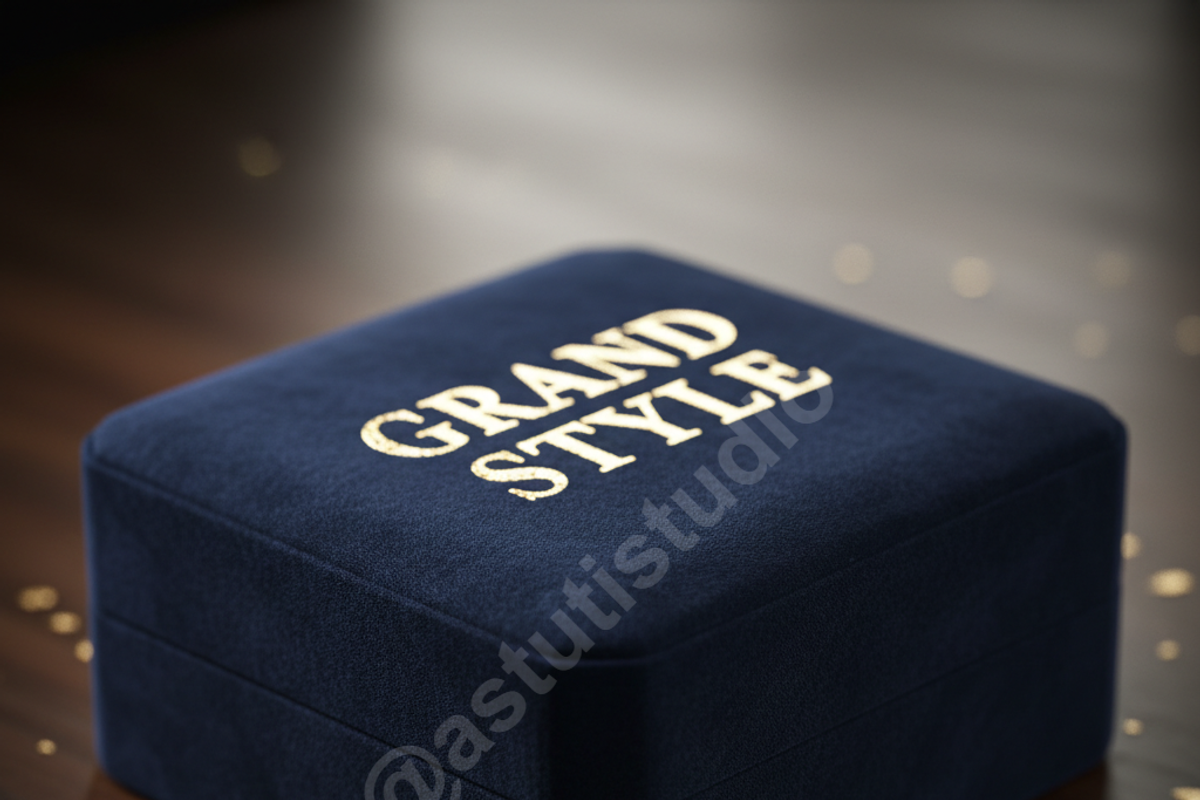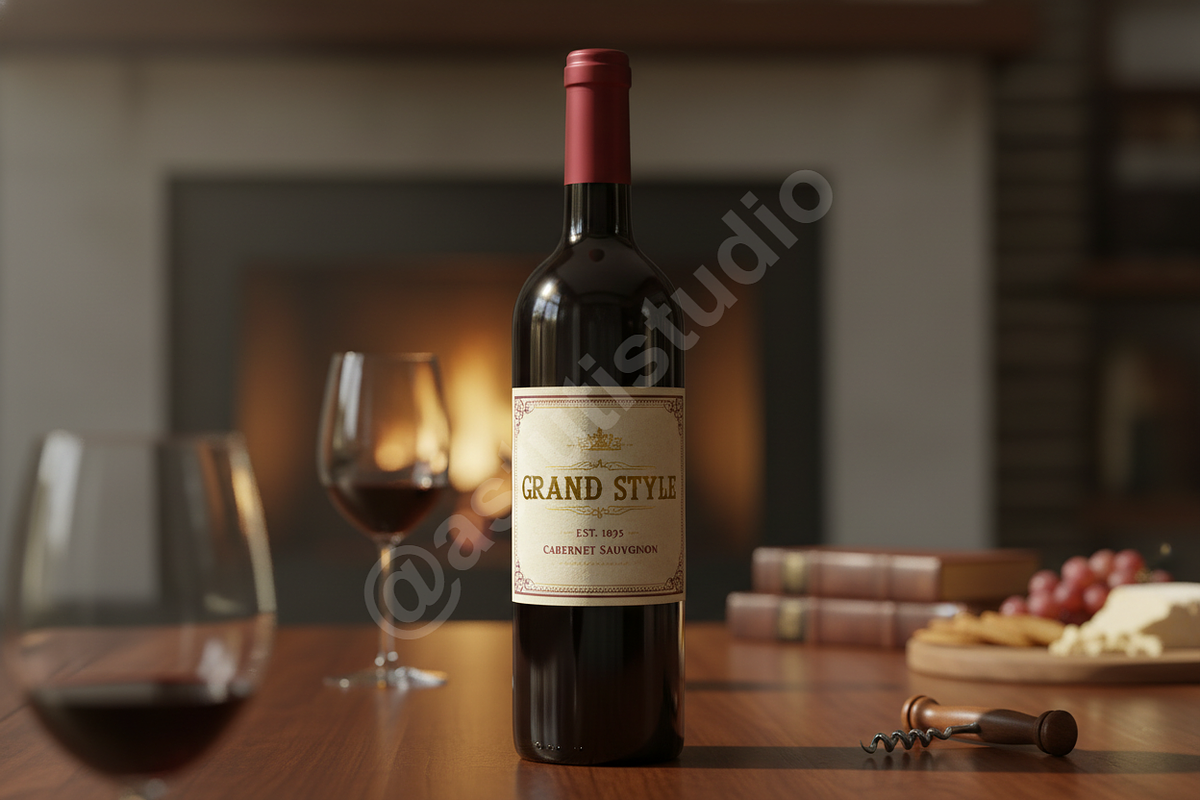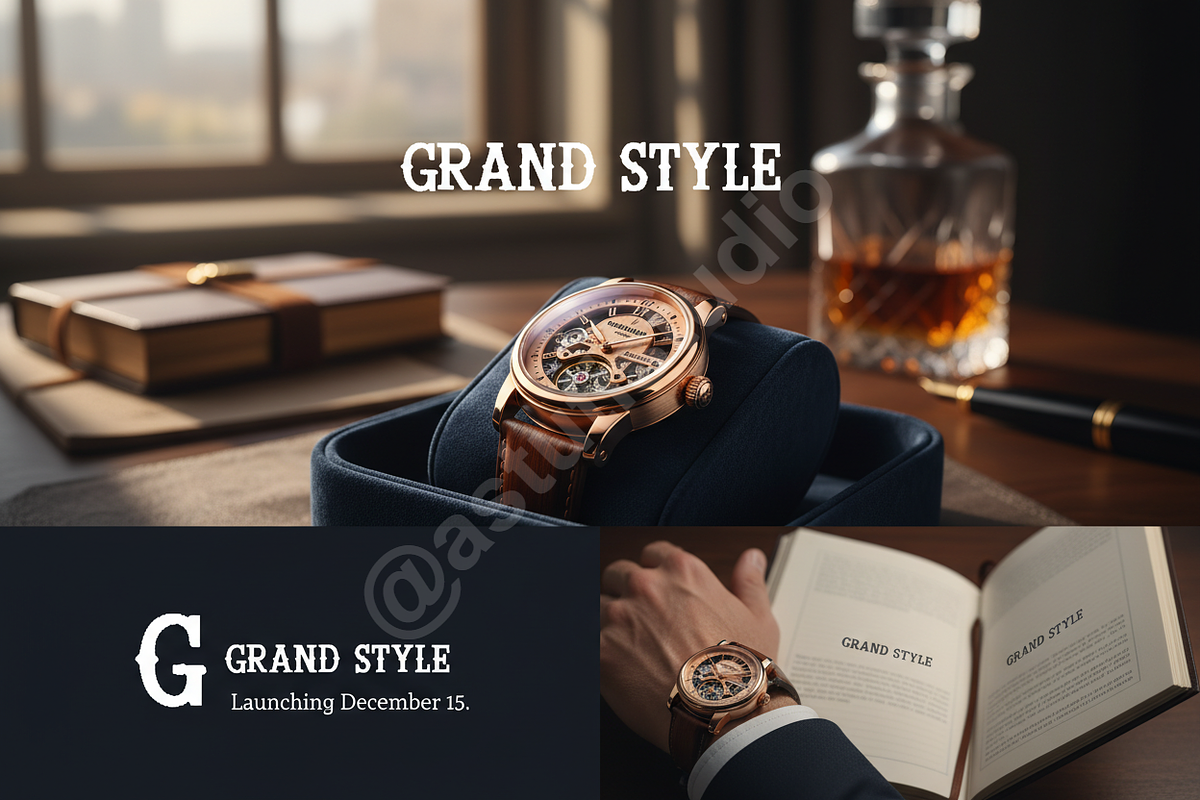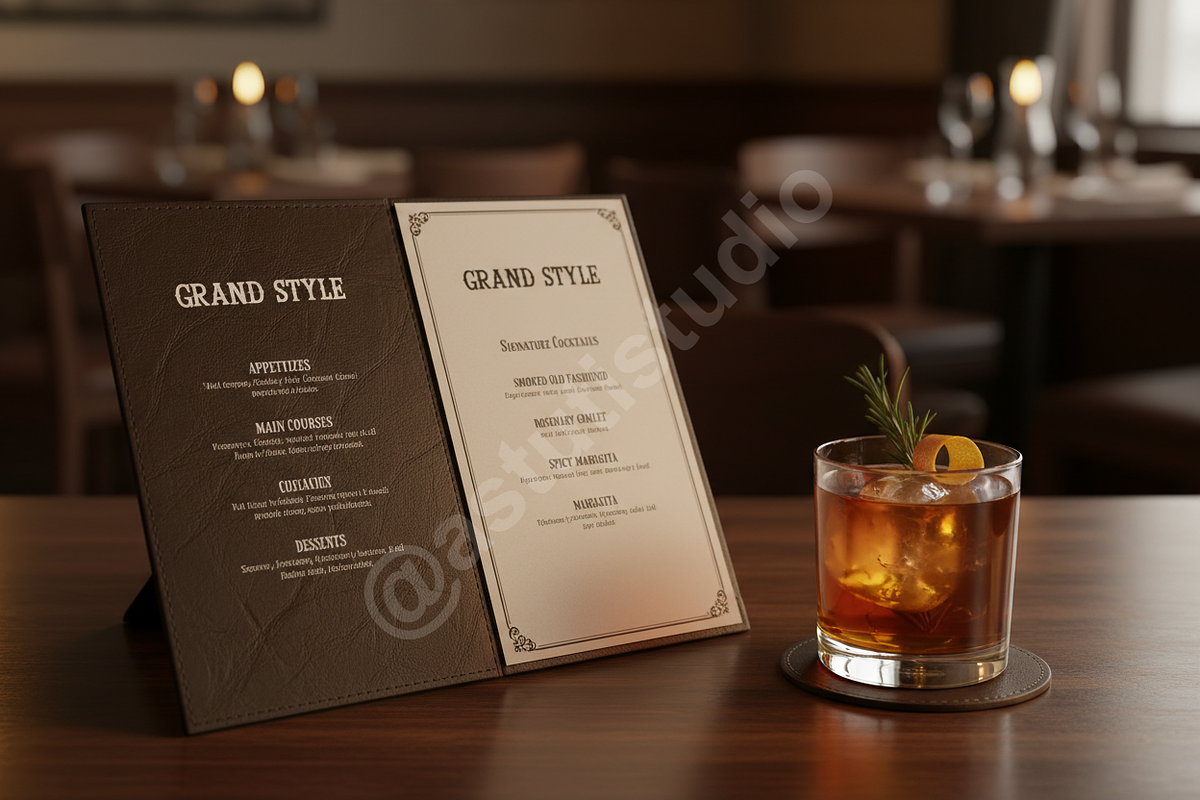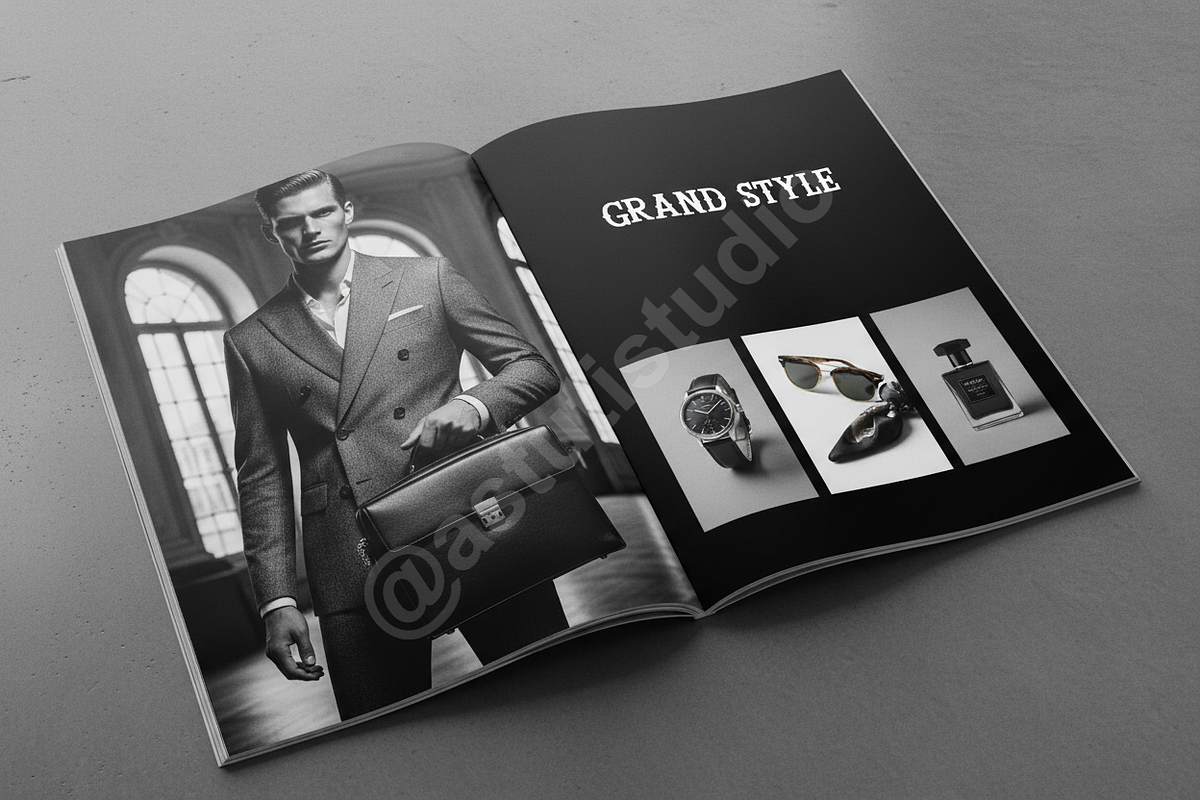
Dexiqo - Elegant Modern Serif Font f
Introduction: Dexiqo is an exquisite modern serif typeface designed to embody sophistication and timeless elegance. With its refined curves, balanced structure, and captivating presence, Dexiqo is the quintessential choice for projects demanding a touch of luxury. It seamlessly elevates high-end branding, editorial layouts, and sophisticated social media content, ensuring your message is delivered with unparalleled style and premium appeal.
- Elegant & Modern Serif Design
- All Caps & Lowercase Characters
- Extensive Ligatures & Stylistic Alternates for unique typography
- Perfect for Luxury Branding, Editorial Design, Magazine Layouts, High-End Packaging, Social Media Graphics, Wedding Invitations, Logos, and more.